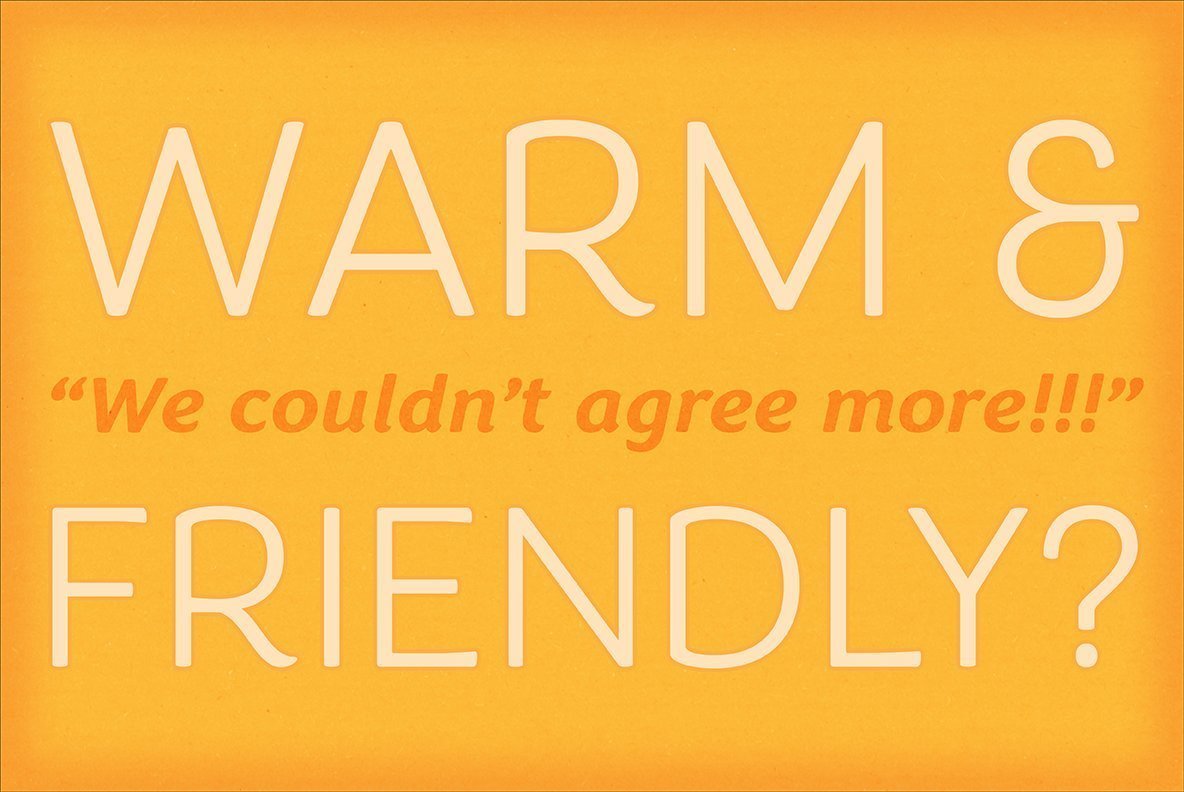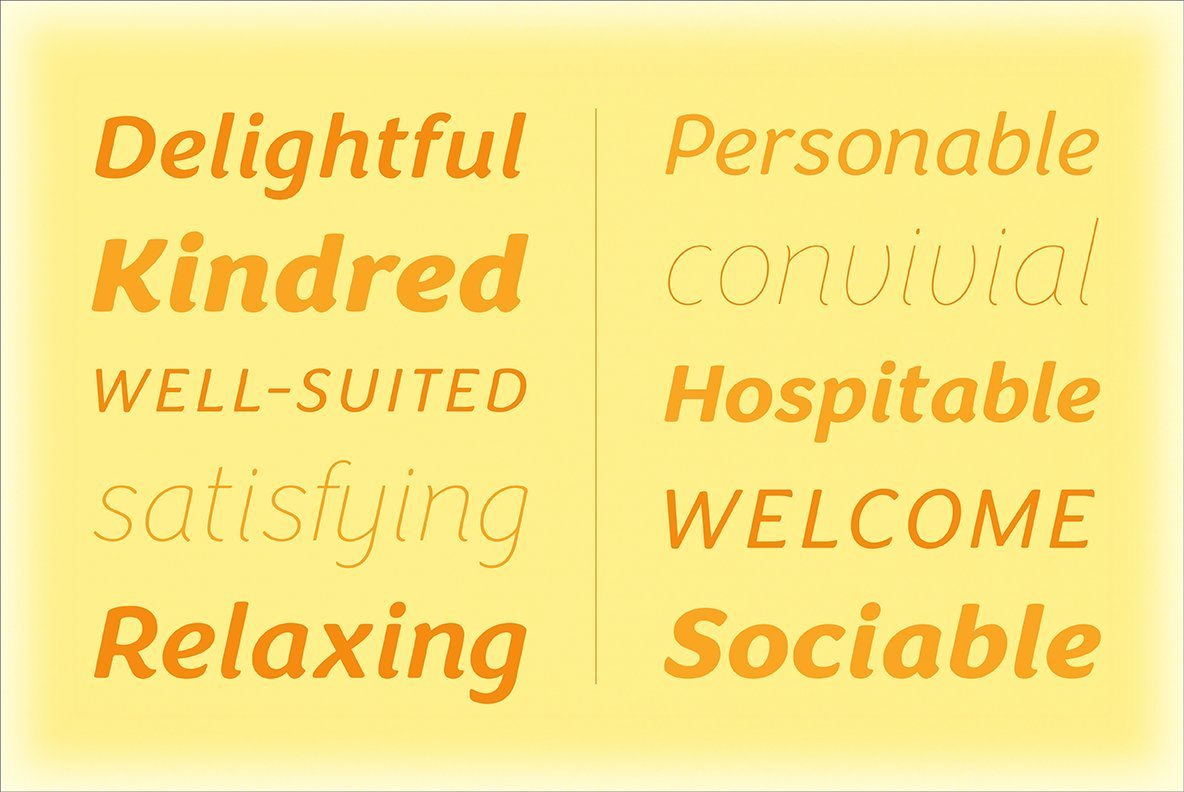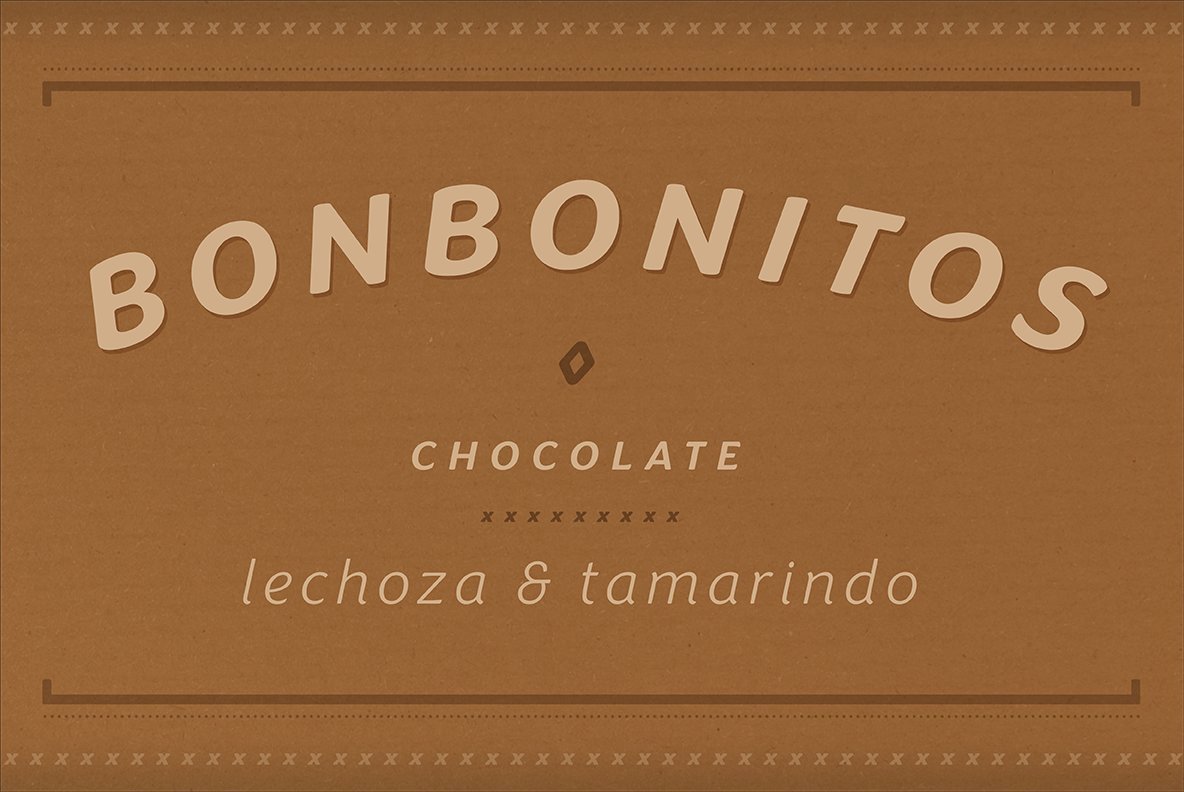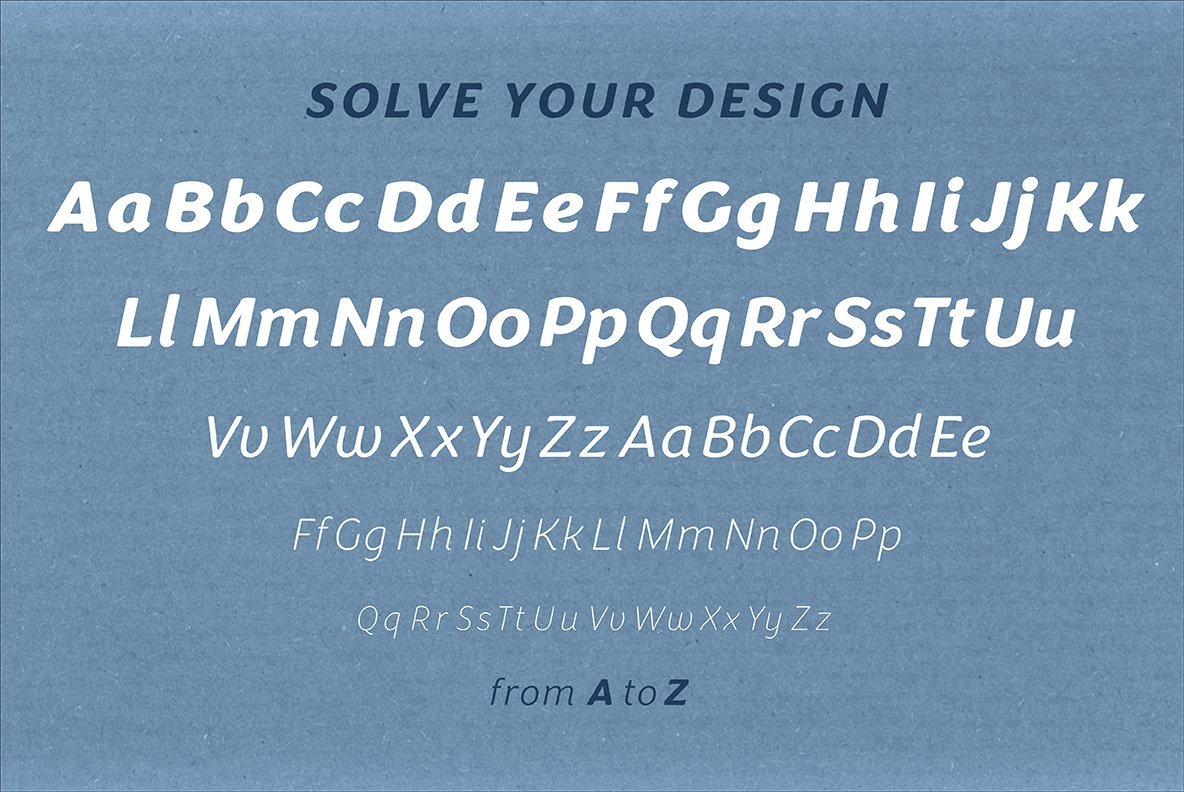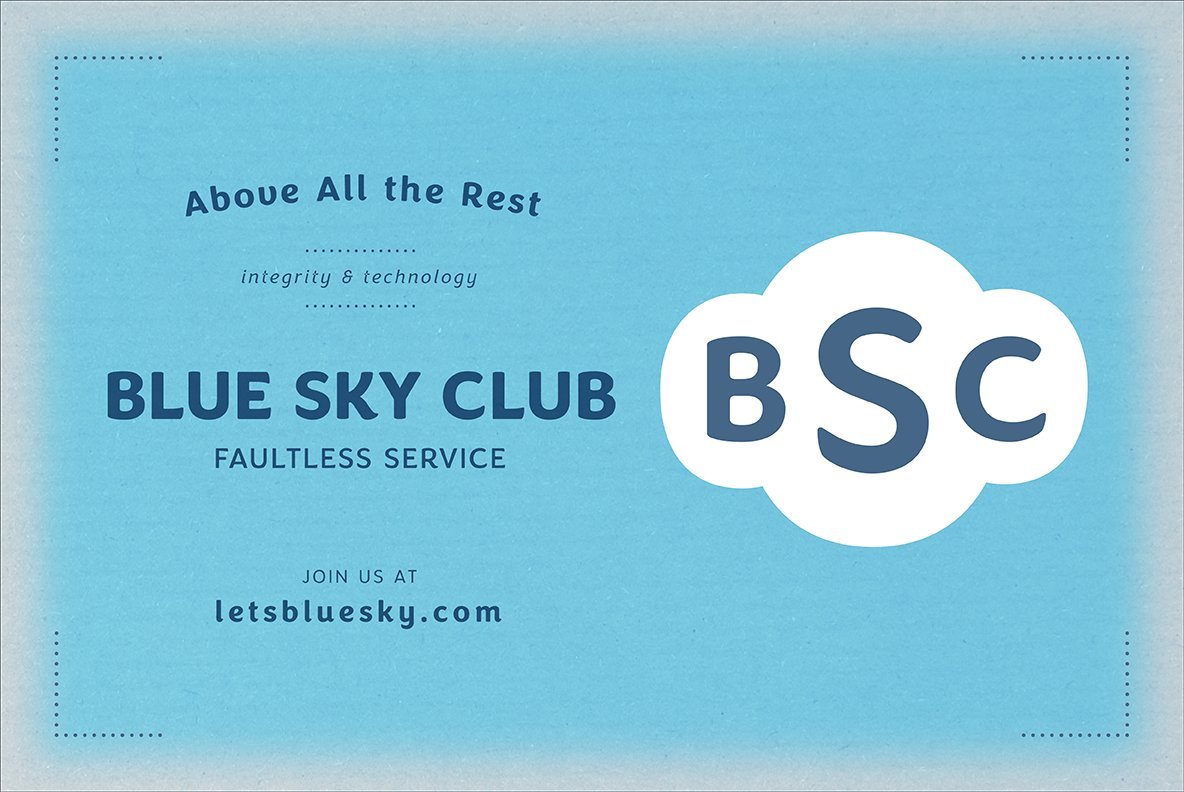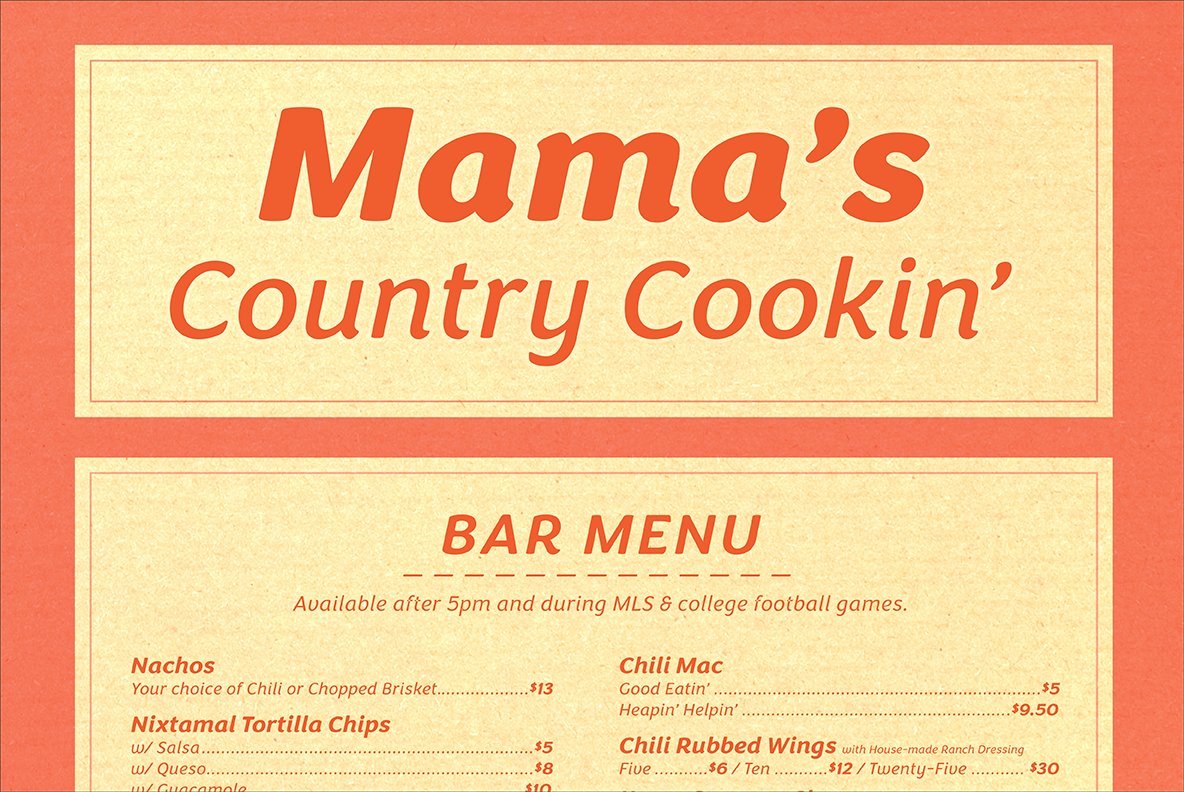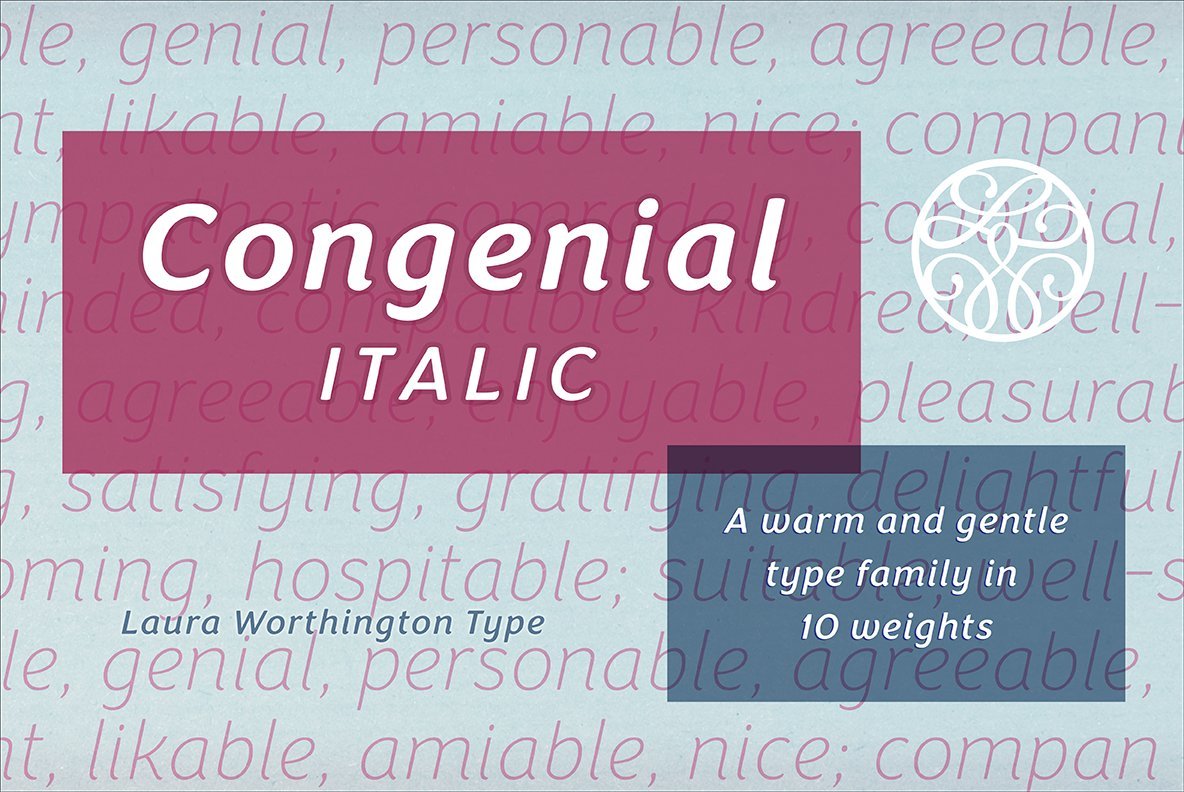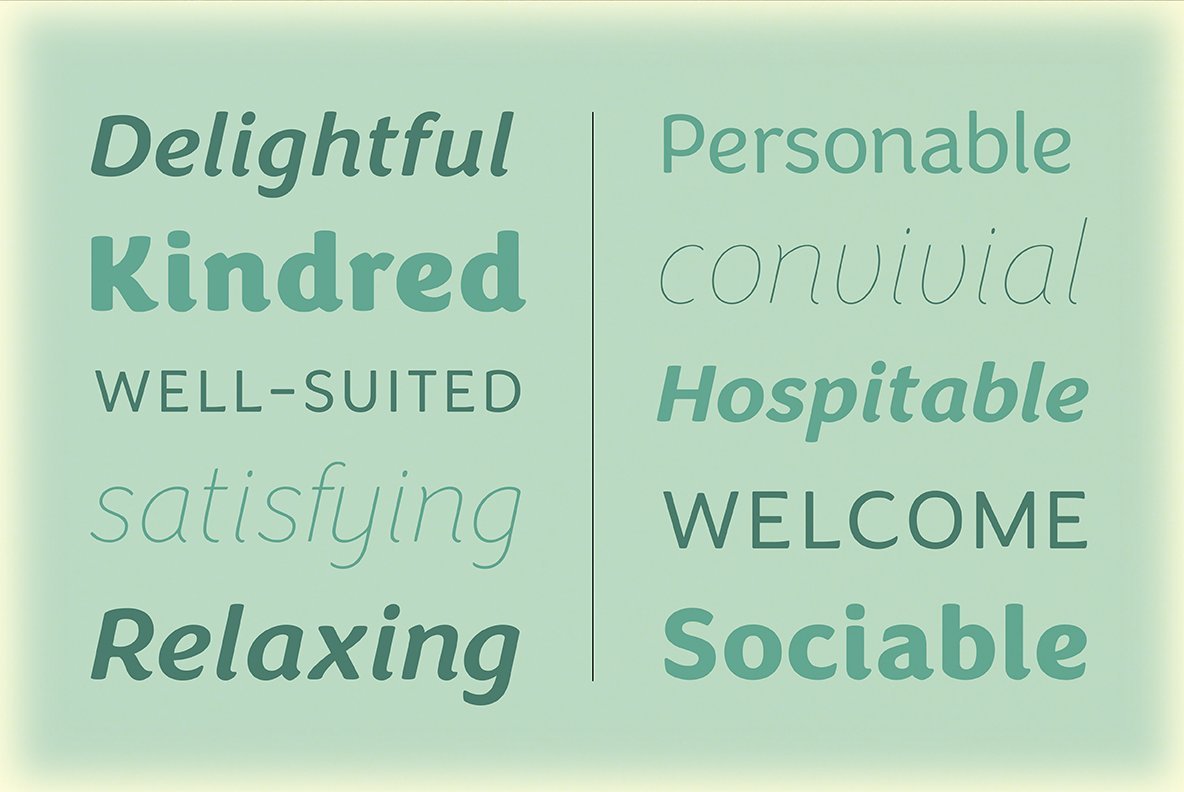
Congenial Font
I wanted to design my own sans-serif typeface for my web site to complement the rest of my type library, so I designed Congenial as an understated, highly legible complement to my more decorative display faces. Of course, I’m never far from my calligraphic roots, so Congenial retains some hand-drawn elements, visible particularly in the heavier weights of this generous 10-face family: for example, the swelling diagonal stroke of the capital X, and the flared terminals of the K, L, Q, and Z. At lighter weights the strokes become almost monoline, but the humanist tendency is still evident — see the graceful, decidedly non-geometric curves of the k, e, and g.
As befits its name, Congenial is a friendly and inviting face with a generous x-height and highly differentiated characters. In fact, look closely and you won’t see a sharp, modernist edge anywhere. Like a perfect host, Congenial draws little attention to herself, yet she’s arranged everything for effortless comfort — so you can focus on communicating whatever you need to say.